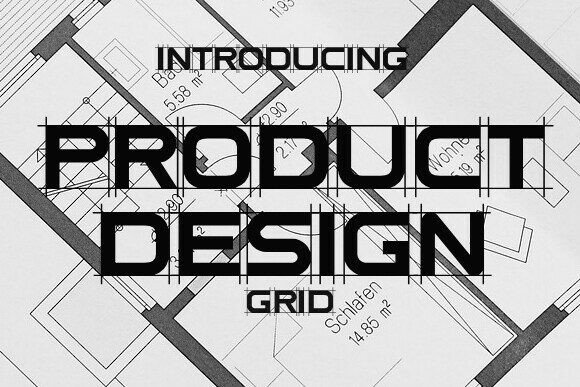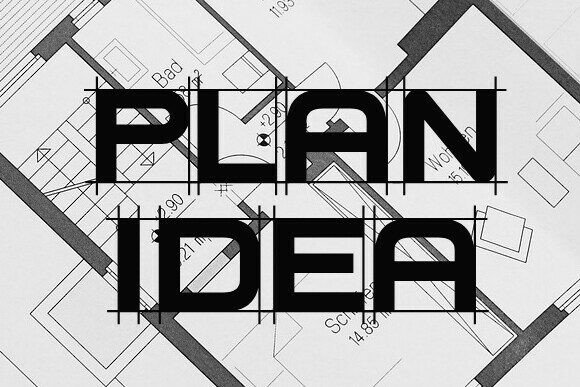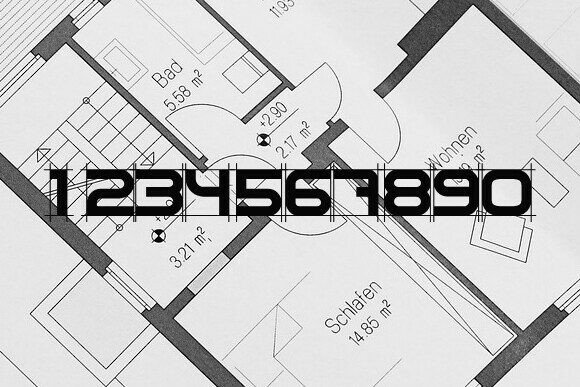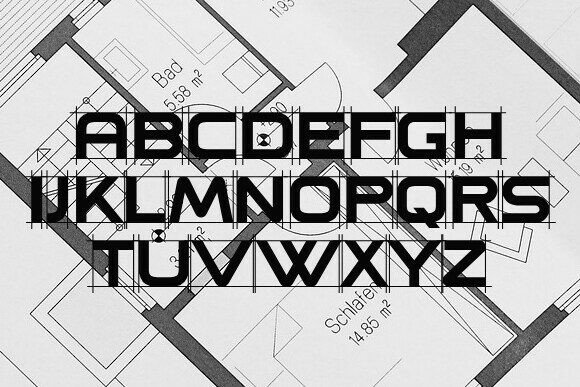
Product Design Font
About the Product Design Font
Unleash your creativity with Product Design Font, a versatile font perfect for a wide range of applications. Product Design is a precision-inspired display font that mimics the clean, structured aesthetic of architectural blueprints and industrial schematics. With its geometric forms and engineered lines, this font is perfect for tech-focused branding, architectural presentations, engineering portfolios, and product packaging. It’s a go-to choice when your design needs clarity, innovation, and a modern, technical edge.
Product Design Font excels in headlines, logos, and short, impactful phrases where its strong geometric forms command attention. It’s ideal for tech startups, industrial design firms, and architectural projects needing a modern, authoritative voice. Avoid using it for lengthy body text or UI elements; its bold structure isn’t optimized for readability in smaller sizes or continuous paragraphs.
Pairing Product Design Font with a clean sans-serif like Open Sans for body copy provides excellent contrast and readability. For a more sophisticated feel, consider pairing it with a classic serif like Garamond for supporting text, balancing its industrial aesthetic with a touch of traditional elegance. A geometric sans-serif such as Futura would also create a cohesive, contemporary look.
The font projects a confident, minimalist personality, conveying precision and innovation. Brands emphasizing technology, engineering, or architecture will find it particularly effective in establishing a strong, credible visual identity.
Product Design Font Usage Examples
Product Design Font Example